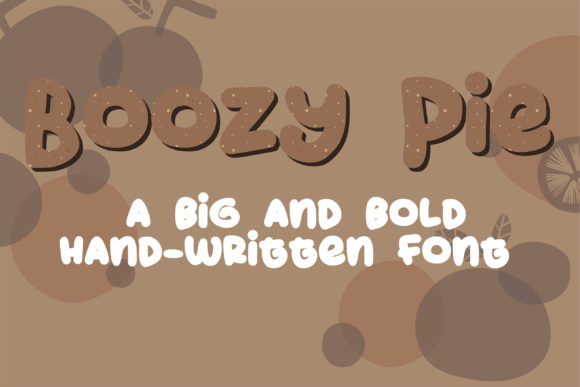
Introducing ZP Boozy Pie Font, the ultimate handwritten display font exuding plump charm!
Picture this: your designs, brimming with the irresistible allure of handwritten authenticity, effortlessly captivating the attention of all who behold them. ZP Boozy Pie Font is your key to unlocking this enchanting world of typography.
With its delightfully chubby letterforms, this font was lovingly crafted to lend an instant touch of warmth and whimsy to any project. Its rounded curves and playful strokes evoke a sense of joy and lightheartedness, making it perfect for adding a personal touch to invitations, greeting cards, posters, and anything else your creative heart desires.
But hold on tight, because there's more! ZP Boozy Pie Font comes equipped with a highlighted version, a true game-changer for design enthusiasts. This brilliant companion allows you to effortlessly create eye-catching designs that are sure to leave a lasting impression. Imagine your social media posts, flyers, and website headers radiating an unforgettable charm, enticing your audience to engage and connect with your brand.
Join the typography revolution with ZP Boozy Pie Font, the perfect choice for designers, crafters, and anyone seeking to infuse their creations with a dash of handwritten magic. Let your imagination soar as you explore endless possibilities and create designs that resonate deeply with your audience.
Unlock the full potential of your typography today and elevate your designs to new heights with ZP Boozy Pie Font!